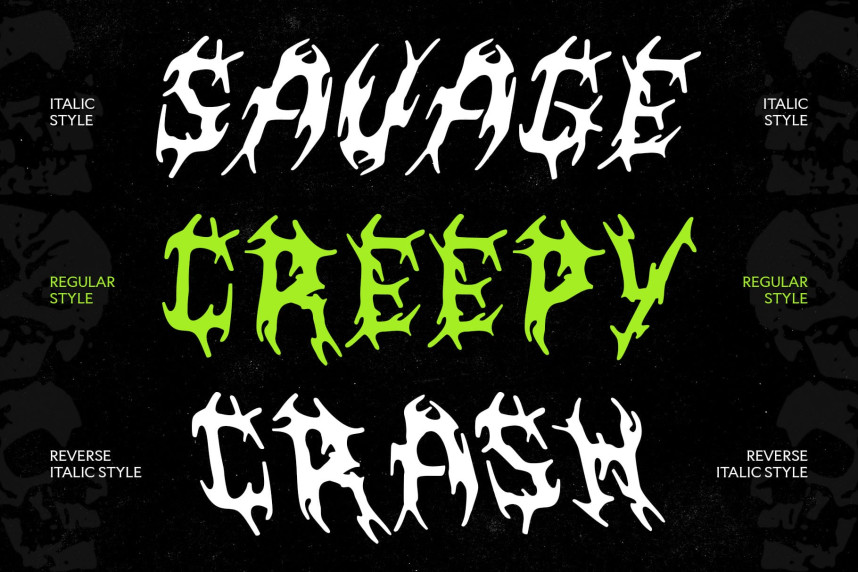
CS Ravage Font
CS Ravage Font – Extreme Energy with Dark Aggression Black Metal Font with Fierce Personality. This is a raw and aggressive black metal font built to channel pure intensity. Its jagged spikes and chaotic strokes create a visual storm of darkness and rebellion, making it a perfect reflection of the raw power behind extreme music.